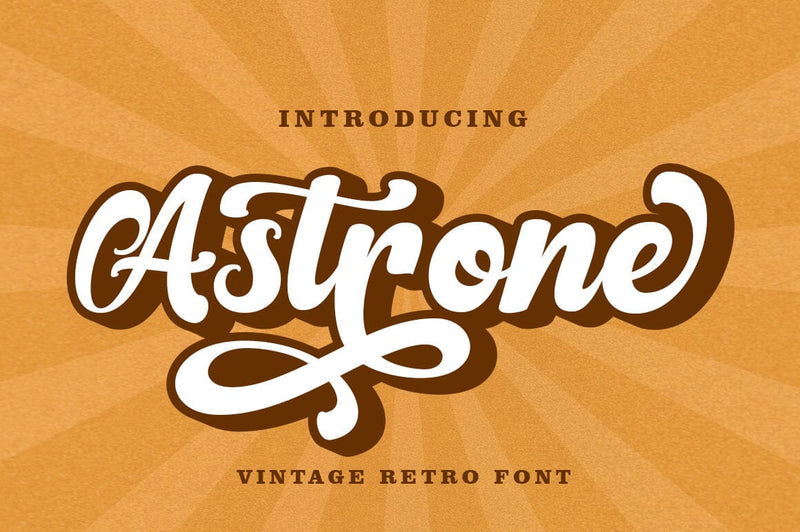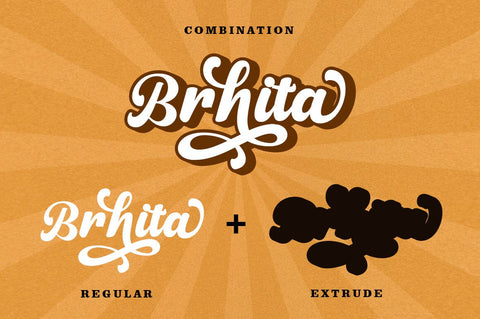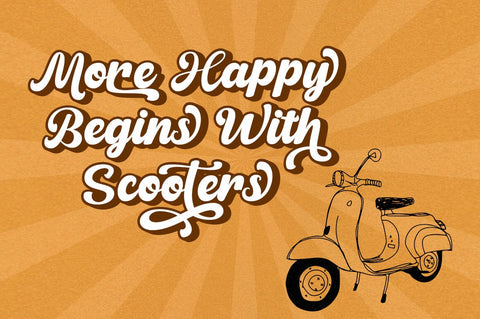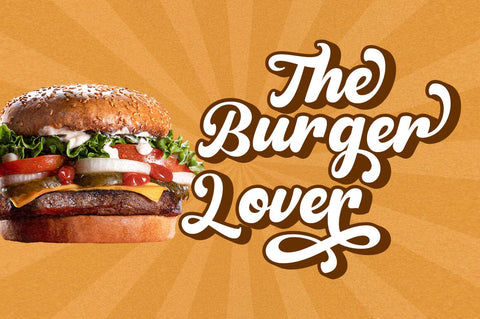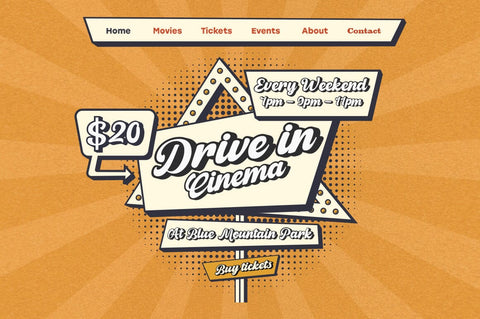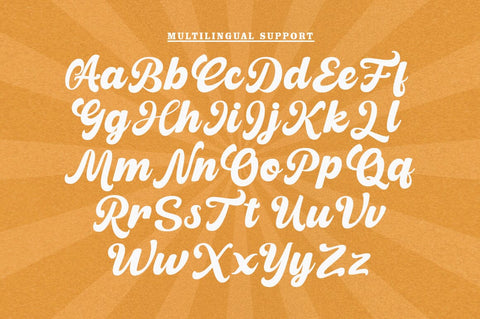
Astrone - Modern Bold Font
Astrone - Classic Retro Font, with very soft curves and lines making this font look beautiful and realistic.
With 301 Characters, Hidden Paradise is perfect for all your design projects, such as invitation cards, product logos, food brands, logos and more.
Hidden Paradise is also supported by Ligatures, Stylistic Set 1, Stylistic Set 2, Stylistic Set 3, Stylistic Set 4, Stylistic Set 6, Stylistic Alternate, and Swash which will help you get a beautiful style with your own creations.